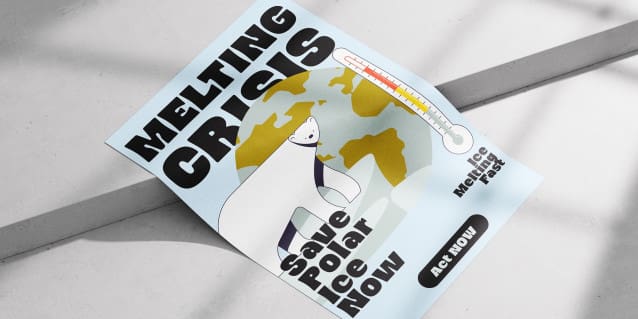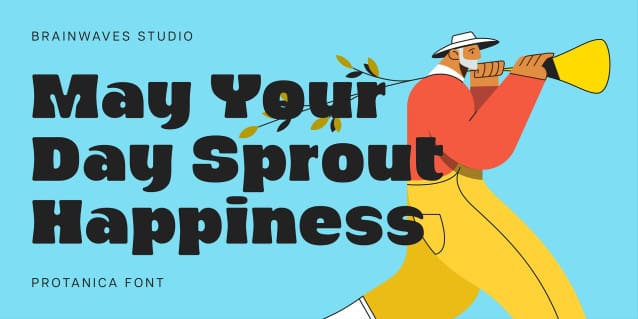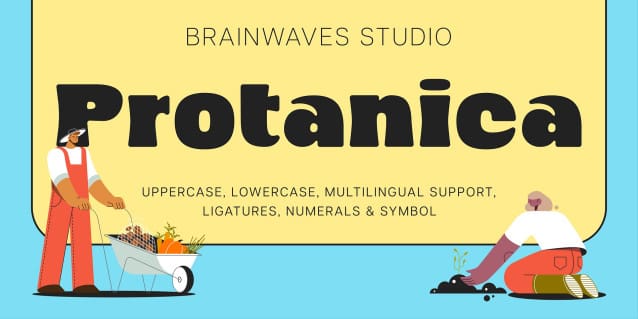
Protanica Font
Protanica Font is a bold retro typeface with a touch of minimalism and semi-rounded edges, making it clean and ideal for minimalist retro designs. It includes uppercase, lowercase, numbers, symbols and function characters, along with multilingual support and standard ligatures.